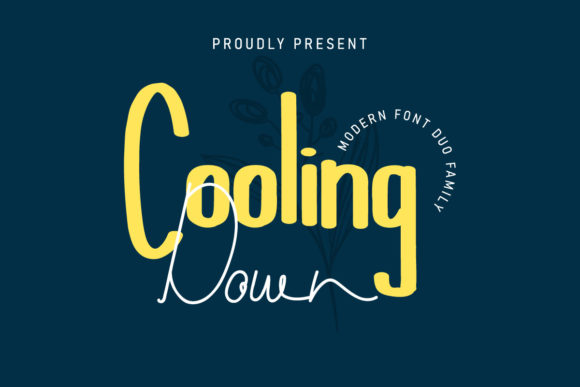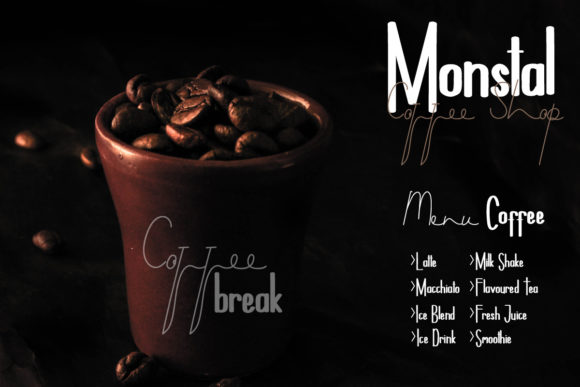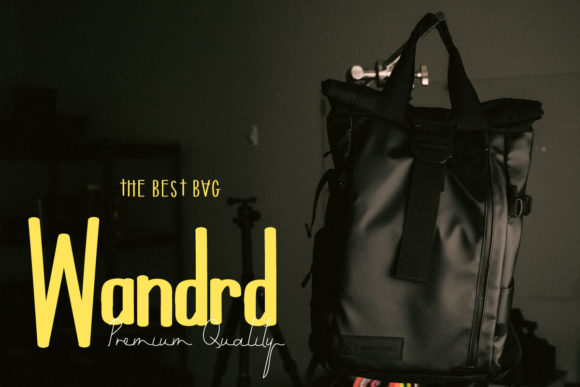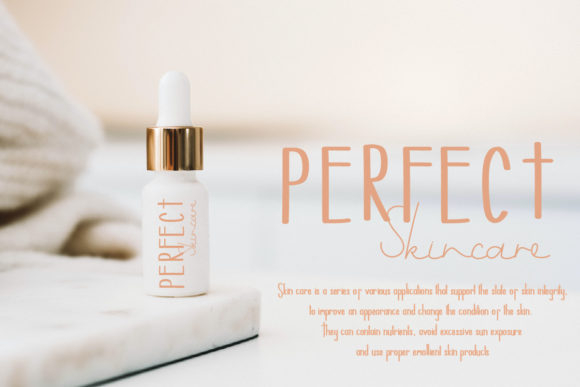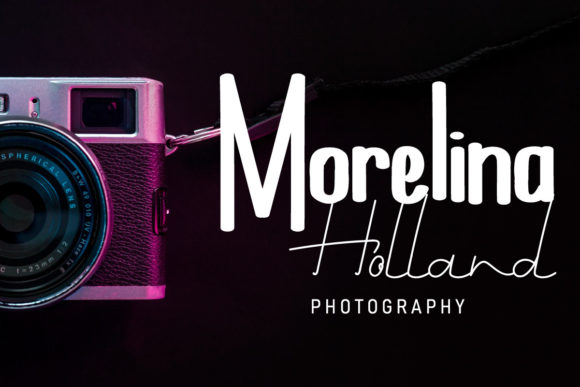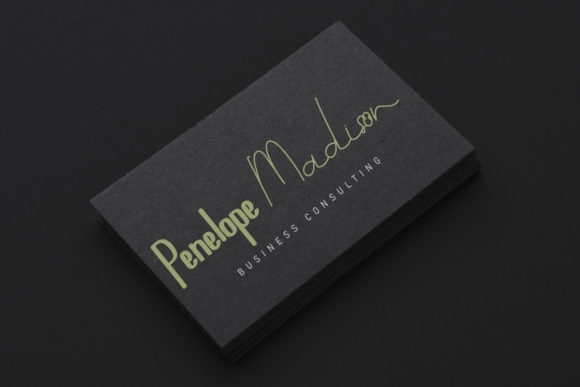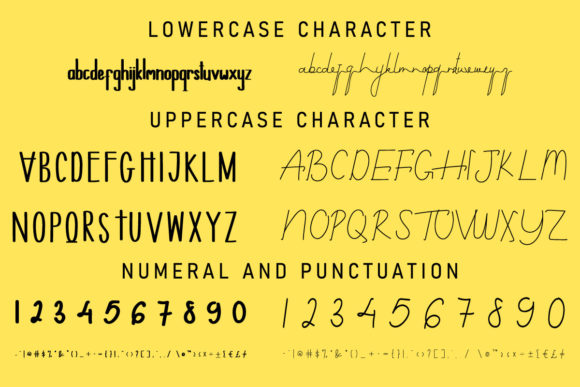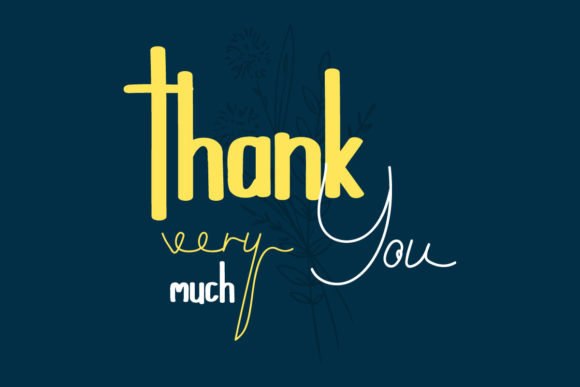
Cooling Down Font
About Cooling Down Font
Cooling Down is a cool and versatile duo font that includes both a script and a sans serif style. Whether used together or separately, these fonts are perfect for adding a chic and cheery touch to your crafts.
The script font features elegant and flowing letterforms, adding a touch of sophistication and charm to your designs. It is ideal for creating stylish and personalized projects such as logos, branding materials, invitations, and more.
The sans serif font, on the other hand, offers a clean and modern look, providing a strong and contemporary visual impact. It is great for creating bold headlines, posters, signage, and any design that requires a sleek and minimalistic aesthetic.
Together, these fonts complement each other harmoniously, allowing you to create unique and eye-catching designs. Use them to add a touch of versatility and style to your crafts, and let them inspire your creativity. Whether you’re working on print or digital projects, Cooling Down is the perfect choice for achieving a chic and cheery look.